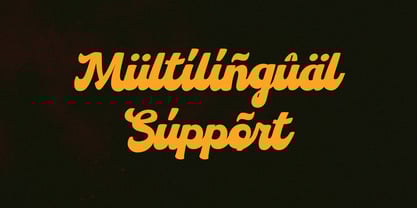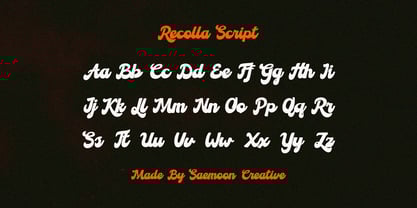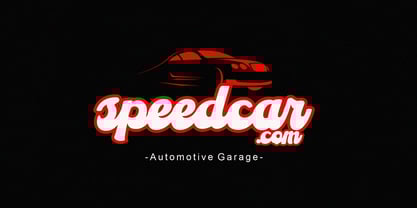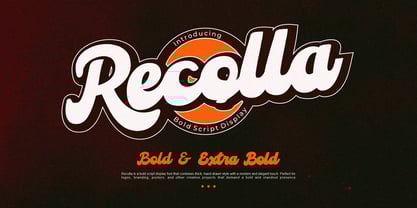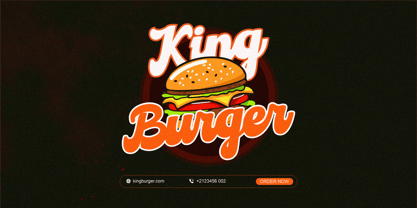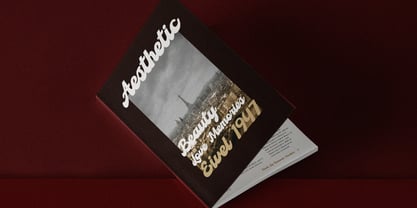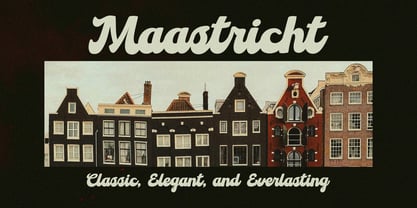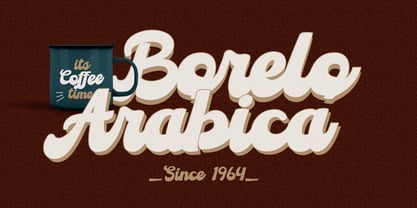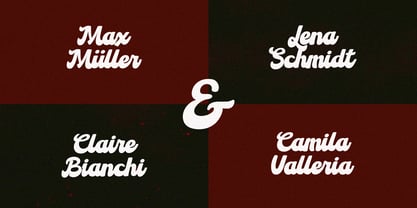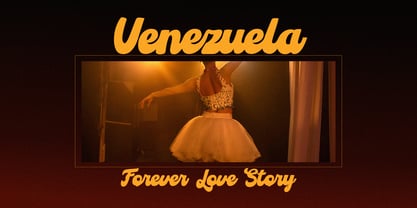
Recolla
by Saemoon Creative
The Recolla Font Family was designed by Sapto Susilo and published by Saemoon Creative. Recolla contains 2 styles and family package options.
Recolla is a bold script display font that exudes energy, style, and confidence. Designed with dynamic curves and strong strokes, this font delivers a bold yet elegant impression, making it perfect for eye-catching designs.
Every letter in Recolla flows naturally, adding an authentic handmade touch to your work. Its thick yet flexible shape makes it ideal for logos, branding, packaging, posters, and various creative projects.
Beyond its striking visual appeal, Recolla brings an exclusive and premium feel, ensuring your designs stand out with a distinctive character. For added versatility, Recolla comes in two styles: Bold and Extra Bold, giving you the freedom to choose the perfect weight for your project.
Make Recolla the signature element of your designs and let its unique charm elevate every piece to a whole new level of style and professionalism!